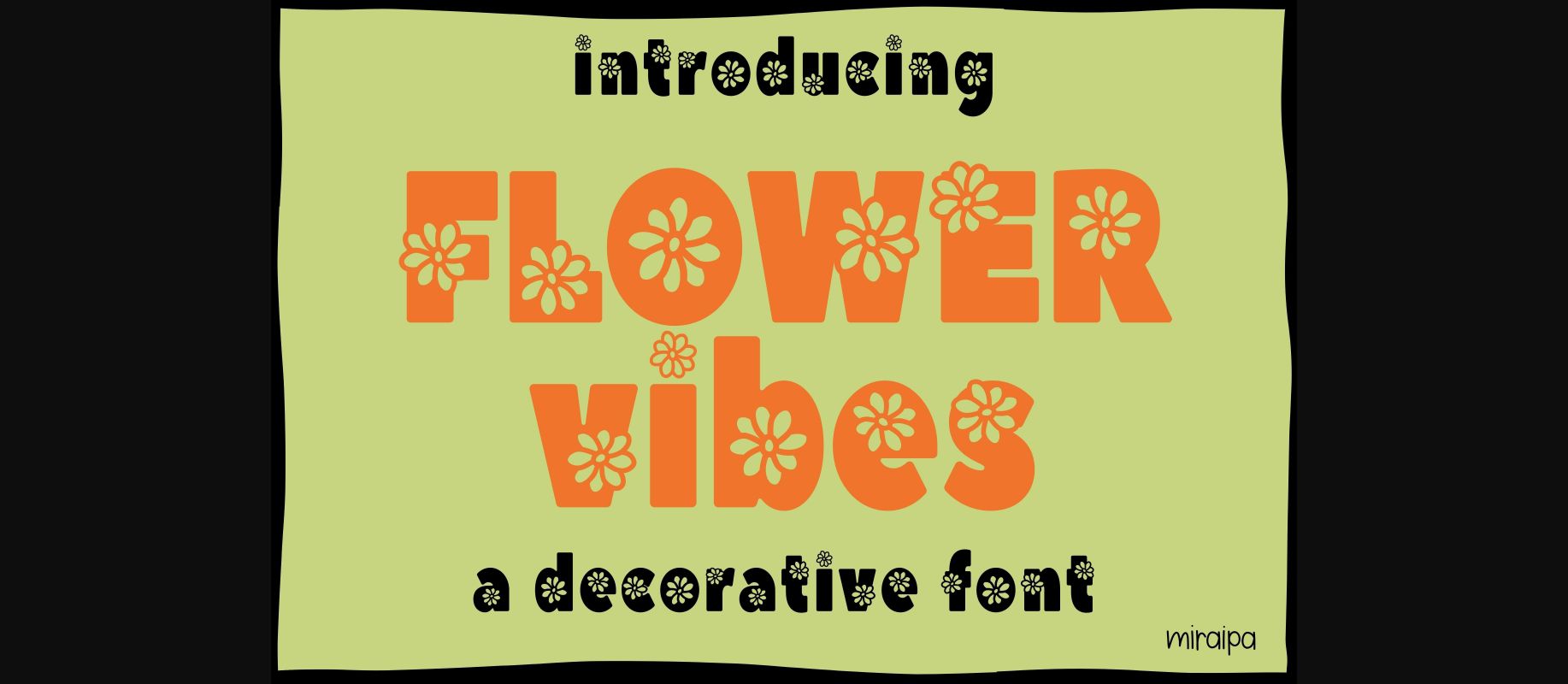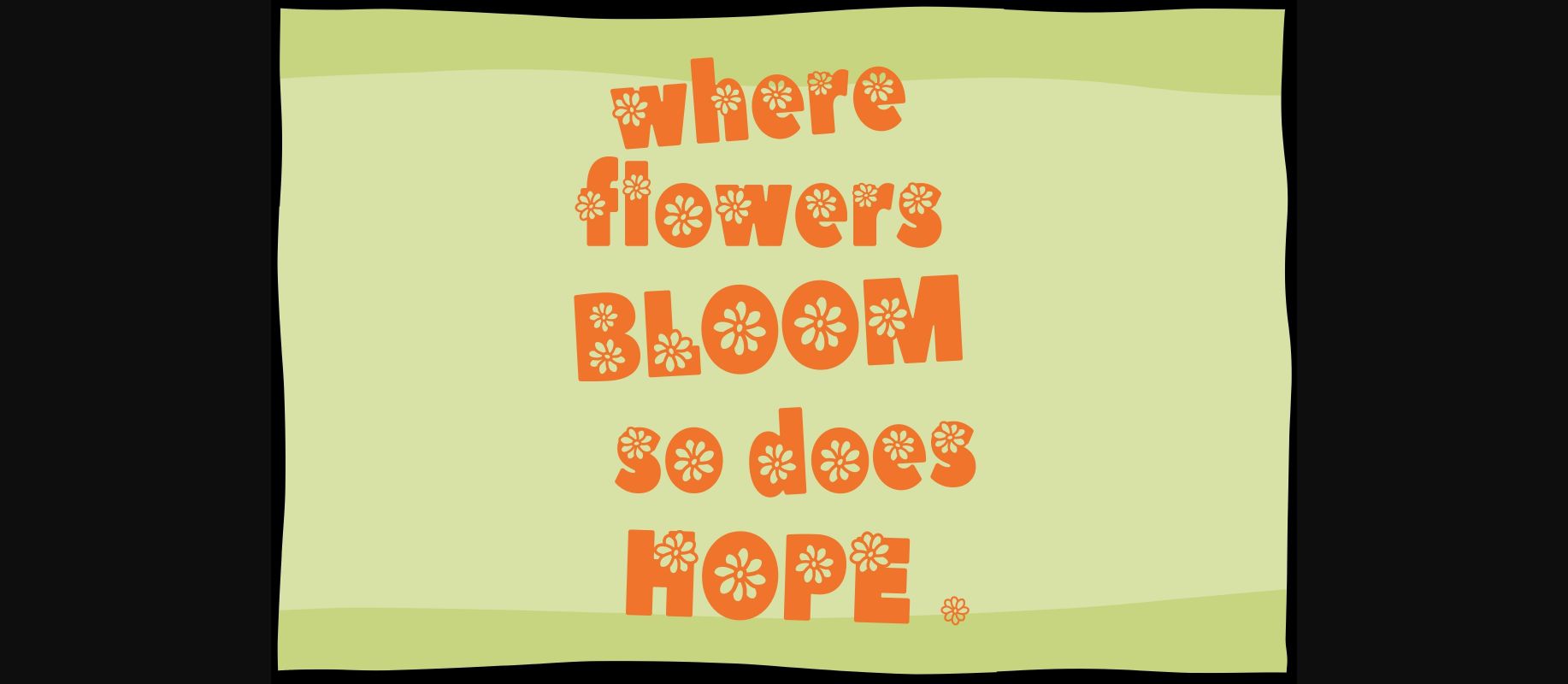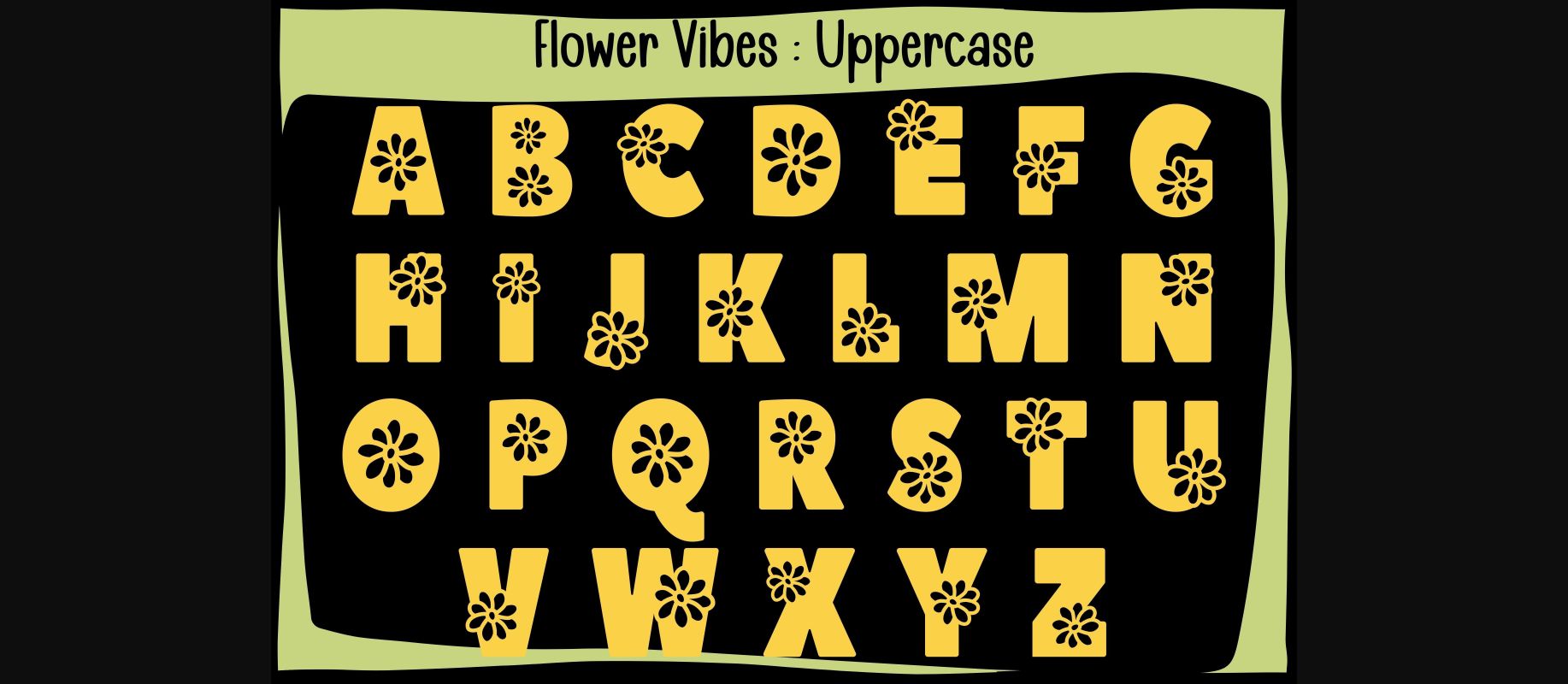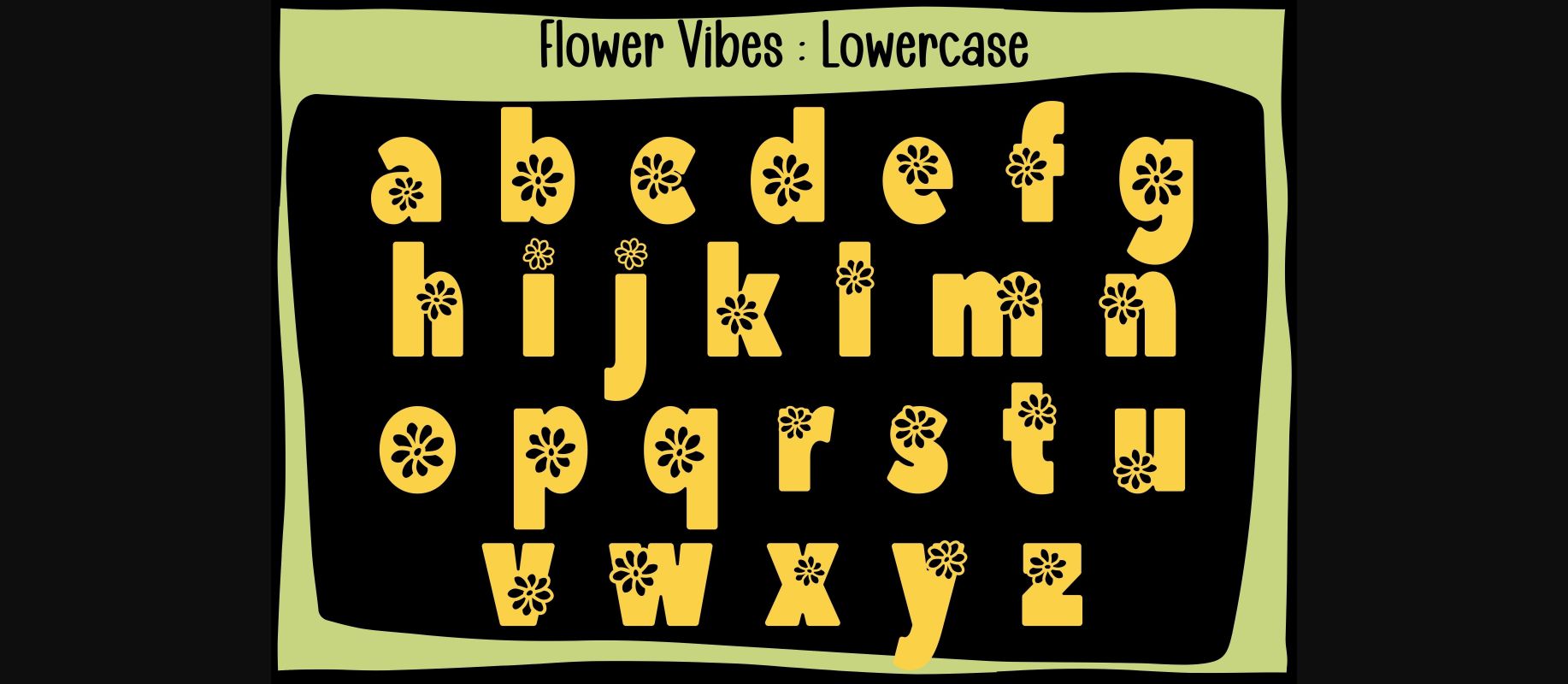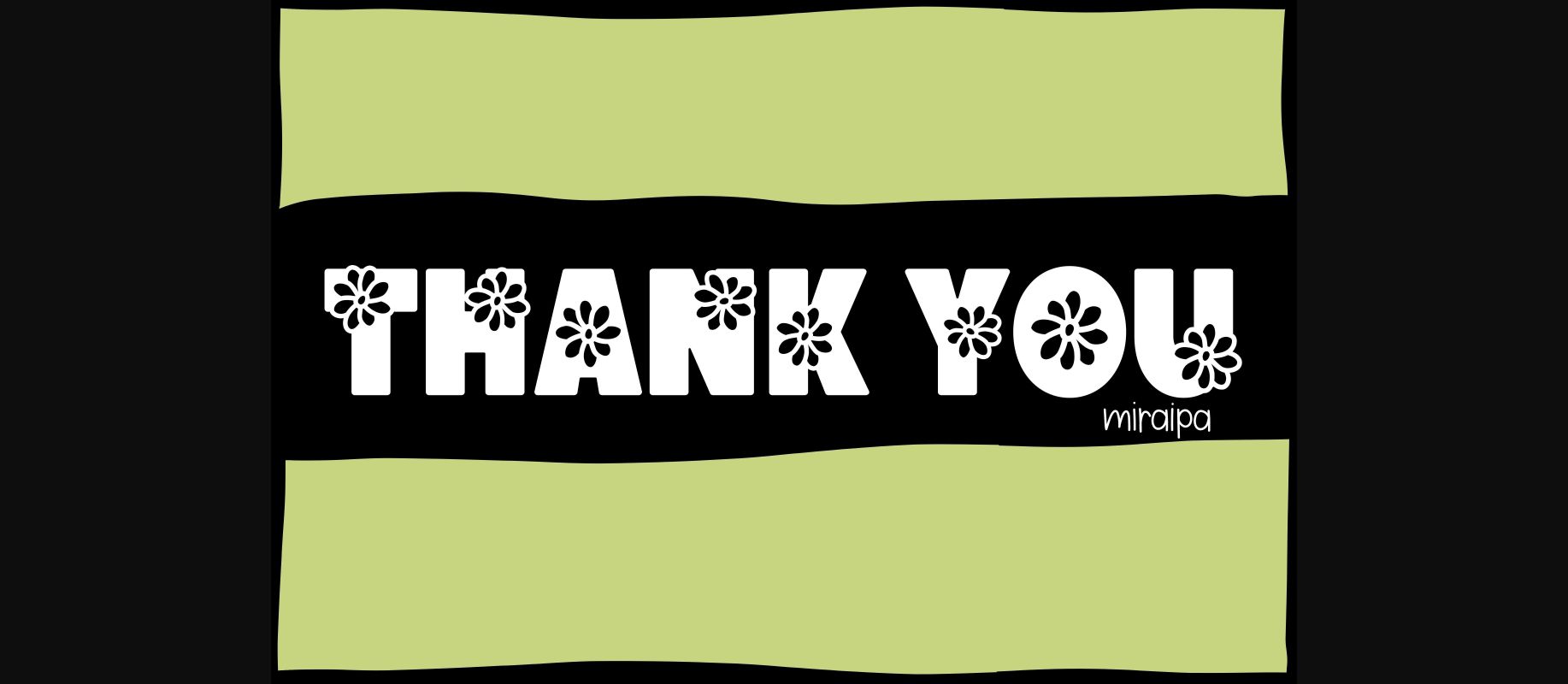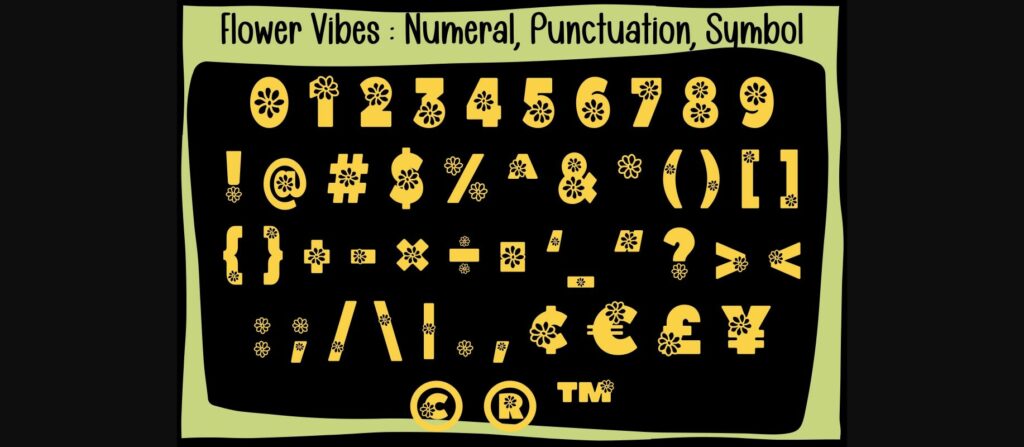
Flower Vibes is a cute and lovely decorative font. With its adorable floral ornaments and hippie vibe, this font will be an incredible asset to your fonts’ library, as it has the potential to elevate any creation.